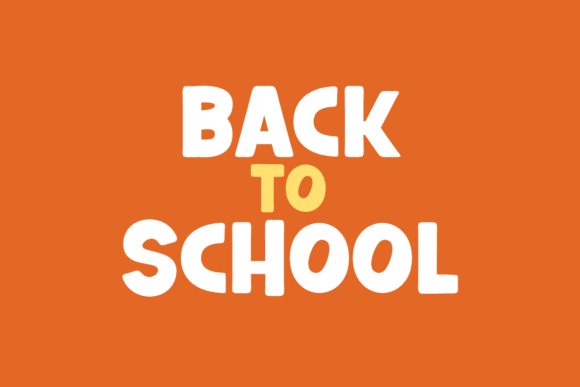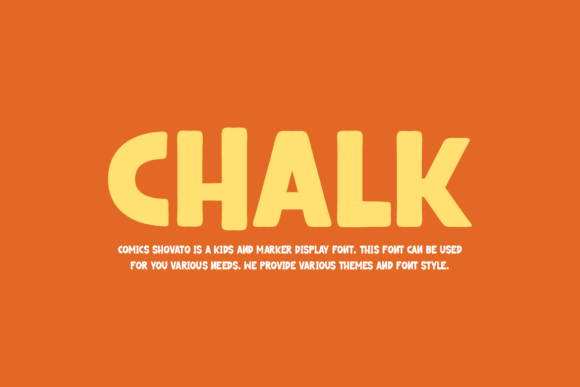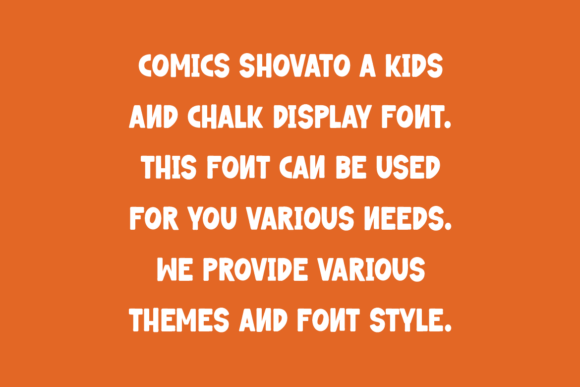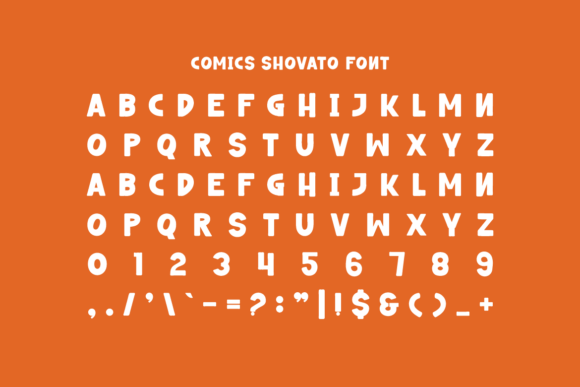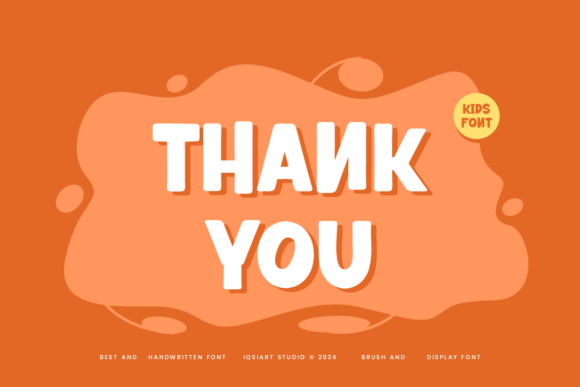
Introducing Comics Shovato Font: The Ultimate Display Font for Playful Designs
Are you a designer or crafter looking for a font that can add a playful and energetic touch to your titles, posters, and designs? Look no further than Comics Shovato Font! This bold and fun comic display font is perfect for anyone who wants to create eye-catching and friendly designs that capture the imagination.
What is Comics Shovato Font?
Comics Shovato Font is a unique and creative typeface that features thick, rounded letters with a playful and energetic feel. The font’s bold and chunky design makes it perfect for use in titles, headings, and posters, where you want to grab the attention of your audience and make a lasting impression.
Key Features of Comics Shovato Font
- Bold and Fun Design: Comics Shovato Font features a bold and fun design that is perfect for creating eye-catching titles and posters.
- Thick and Rounded Letters: The font’s thick and rounded letters give it a playful and energetic feel that is sure to capture the imagination.
- Perfect for Friendly and Eye-Catching Designs: Whether you’re creating a poster, title, or design, Comics Shovato Font is perfect for adding a friendly and eye-catching touch.
Why Use Comics Shovato Font?
There are many reasons why designers and crafters love using Comics Shovato Font in their projects. Here are just a few:
- Adds a Playful Touch: Comics Shovato Font adds a playful and energetic touch to any design, making it perfect for projects that require a fun and friendly vibe.
- Highly Versatile: The font is highly versatile and can be used in a wide range of projects, from posters and titles to logos and branding.
- Easily Readable: Despite its bold and chunky design, Comics Shovato Font is easily readable, making it perfect for use in titles and headings.
How to Use Comics Shovato Font
Using Comics Shovato Font is easy! Here are a few tips to get you started:
- Use it as a Title Font: Comics Shovato Font is perfect for use as a title font, adding a bold and eye-catching touch to your designs.
- Pair it with Other Fonts: The font pairs well with other fonts, making it easy to create a unique and cohesive look.
- Experiment with Colors and Textures: Don’t be afraid to experiment with different colors and textures to add depth and interest to your designs.
Who Can Use Comics Shovato Font?
Comics Shovato Font is perfect for a wide range of designers and crafters, including:
- Graphic Designers: Graphic designers can use Comics Shovato Font to add a playful and energetic touch to their designs.
- Illustrators: Illustrators can use the font to add a bold and eye-catching touch to their illustrations.
- Crafters: Crafters can use Comics Shovato Font to add a friendly and playful touch to their craft projects.
In conclusion, Comics Shovato Font is a bold, fun comic display font that is perfect for designers and crafters who want to add a playful and energetic touch to their designs. With its thick, rounded letters and highly versatile design, it’s easy to see why this font is a popular choice for titles, posters, and designs that need a friendly and eye-catching style.